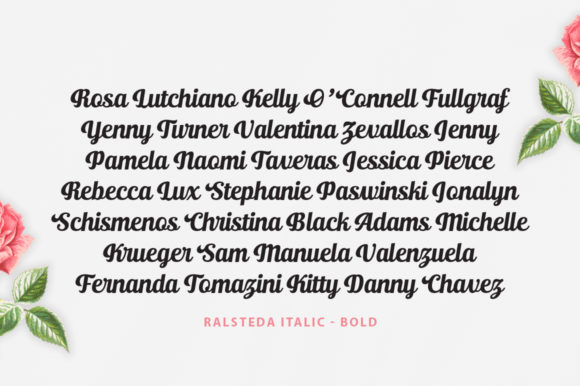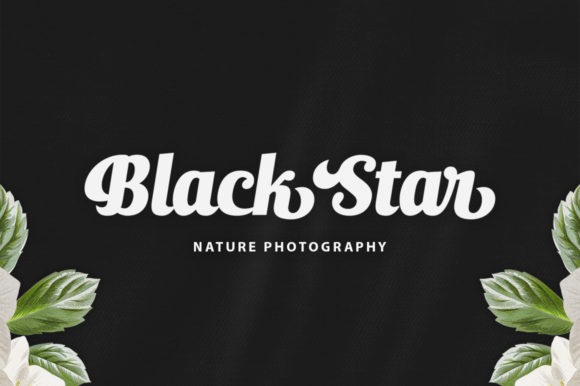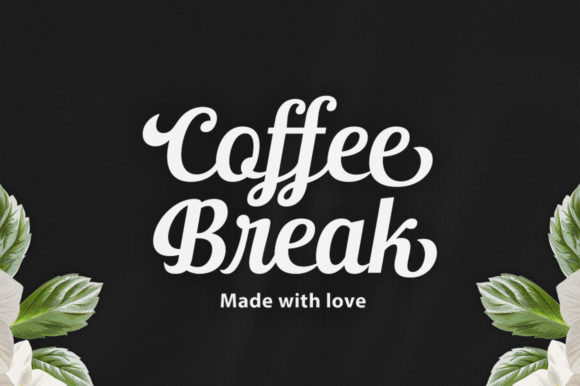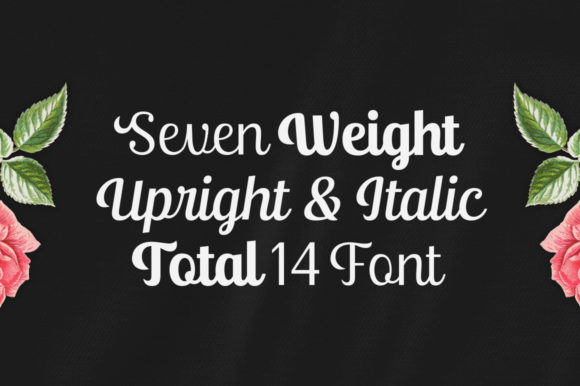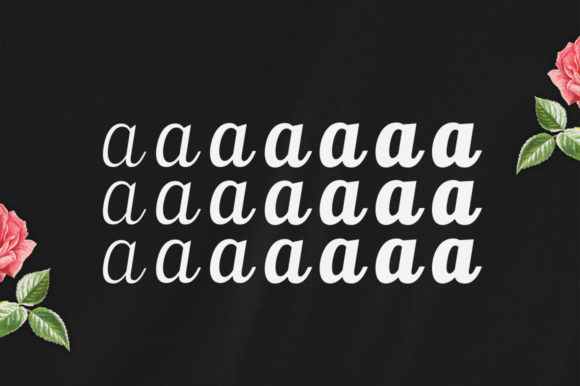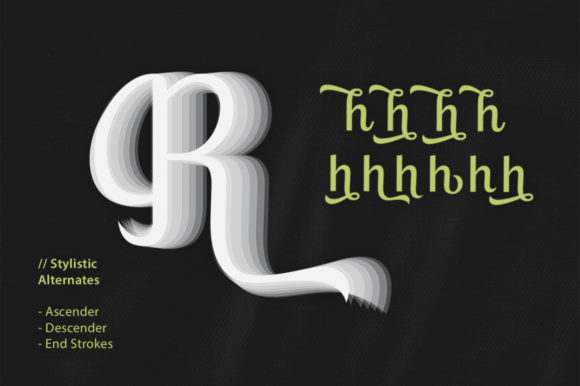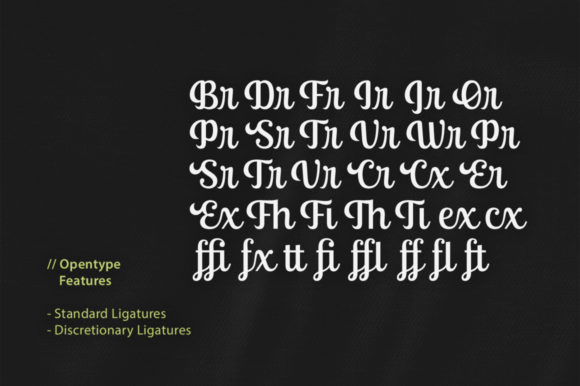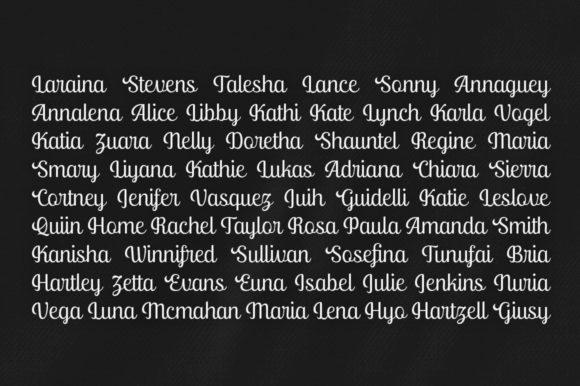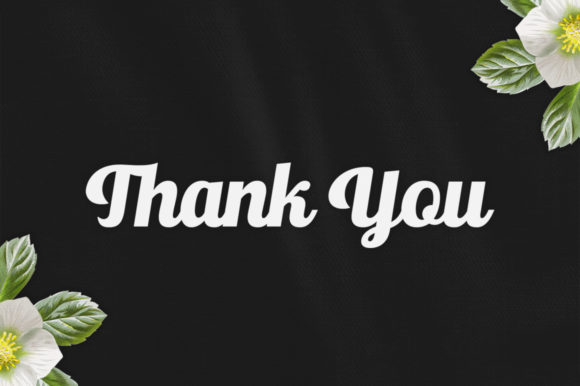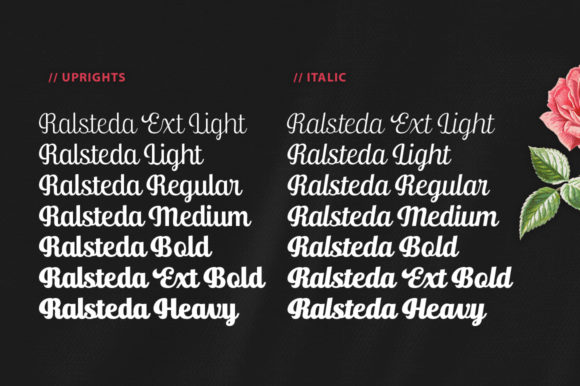
Ralsteda Font
About Ralsteda Font
“Ralsteda” is a one-of-a-kind handwritten font that adds a distinctive touch to your creative endeavors. With its unique and captivating design, this font serves as a powerful tool to enhance the realism of your ideas and bring your design concepts to life.
Incorporating “Ralsteda” into your projects allows you to infuse a sense of authenticity and creativity. Its handcrafted letterforms and individualistic style make it an excellent choice for projects that require a personalized and distinctive look.
The versatility of “Ralsteda” lends itself to a wide range of design applications, including branding, logos, packaging, social media graphics, and more. Its ability to evoke a sense of uniqueness ensures that your designs will stand out and capture the attention of your audience.
By utilizing “Ralsteda,” you can explore new dimensions of creativity and push the boundaries of your design ideas. Whether you’re aiming for a playful or sophisticated aesthetic, this font offers endless possibilities for creating truly spectacular and visually engaging designs.
Incorporate “Ralsteda” into your projects with enthusiasm, and you’ll discover how it transforms your creative vision into extraordinary and captivating designs.
In summary, “Ralsteda” is a unique handwritten font that adds authenticity and creativity to your ideas. Embrace its distinctive style and use it as a tool to create spectacular and visually engaging designs that resonate with your audience and leave a lasting impression.